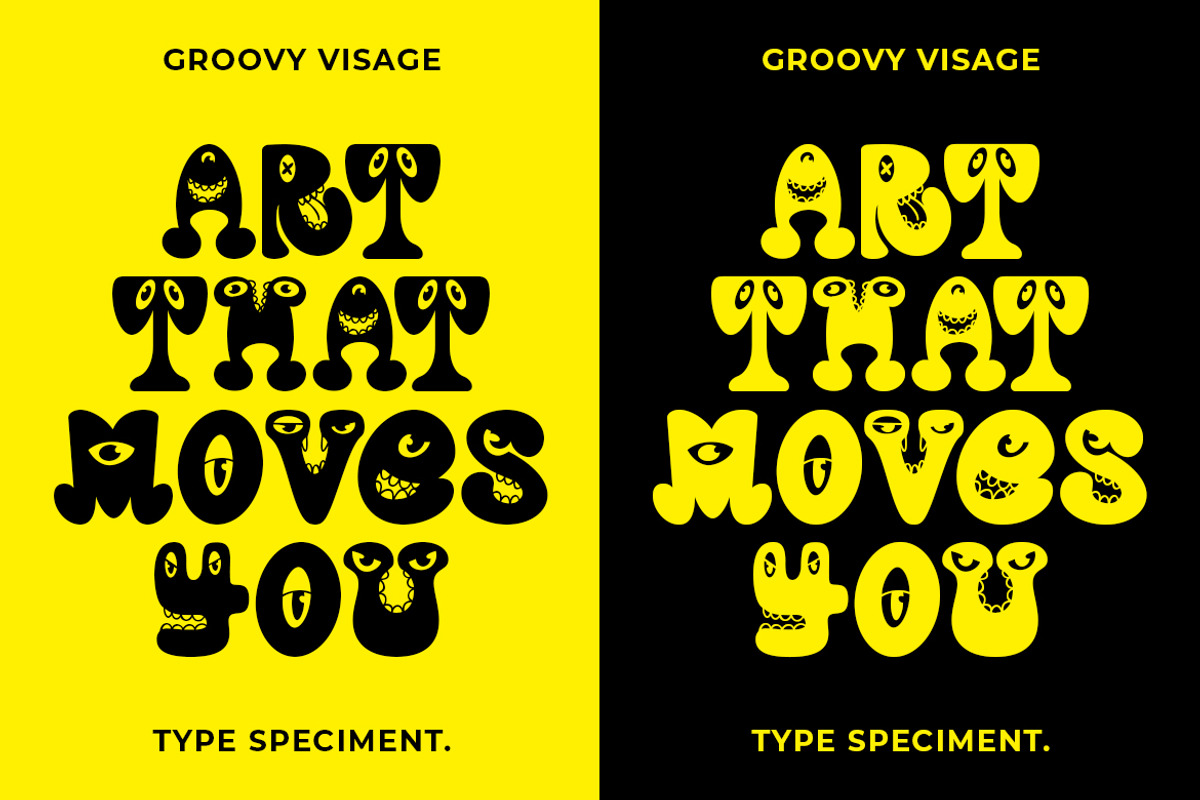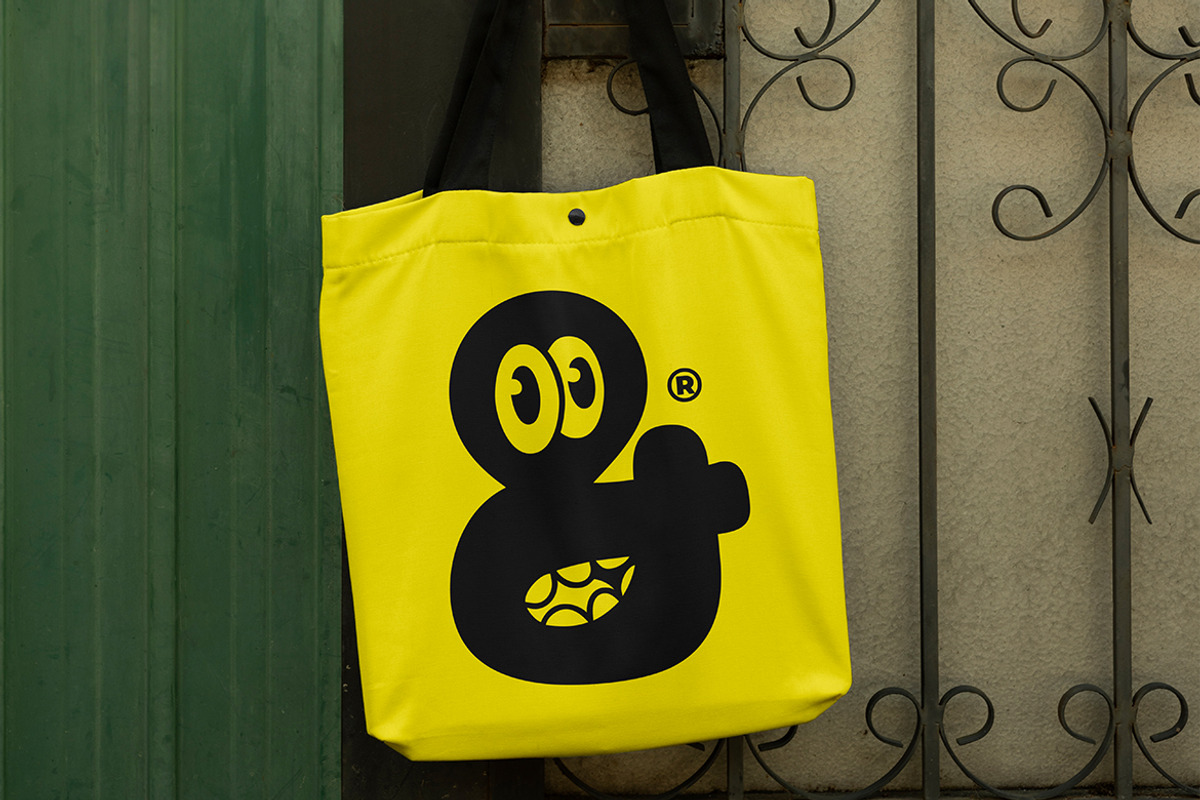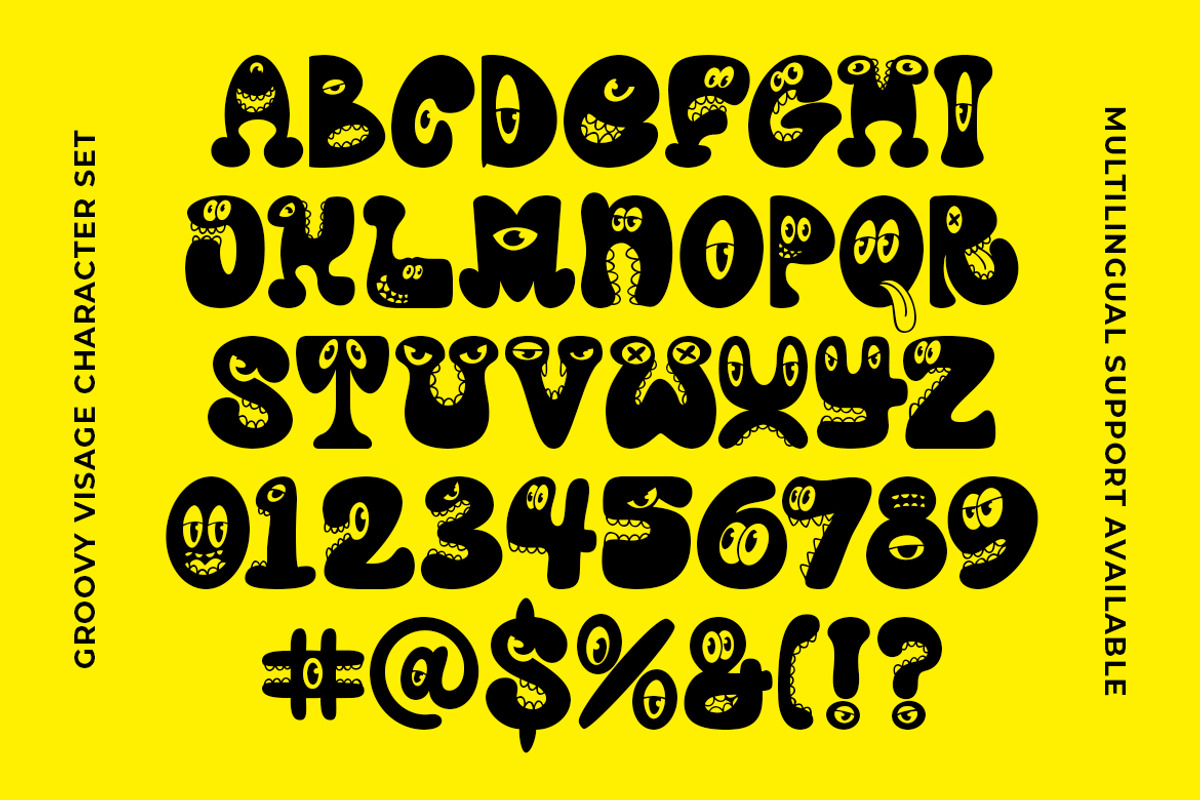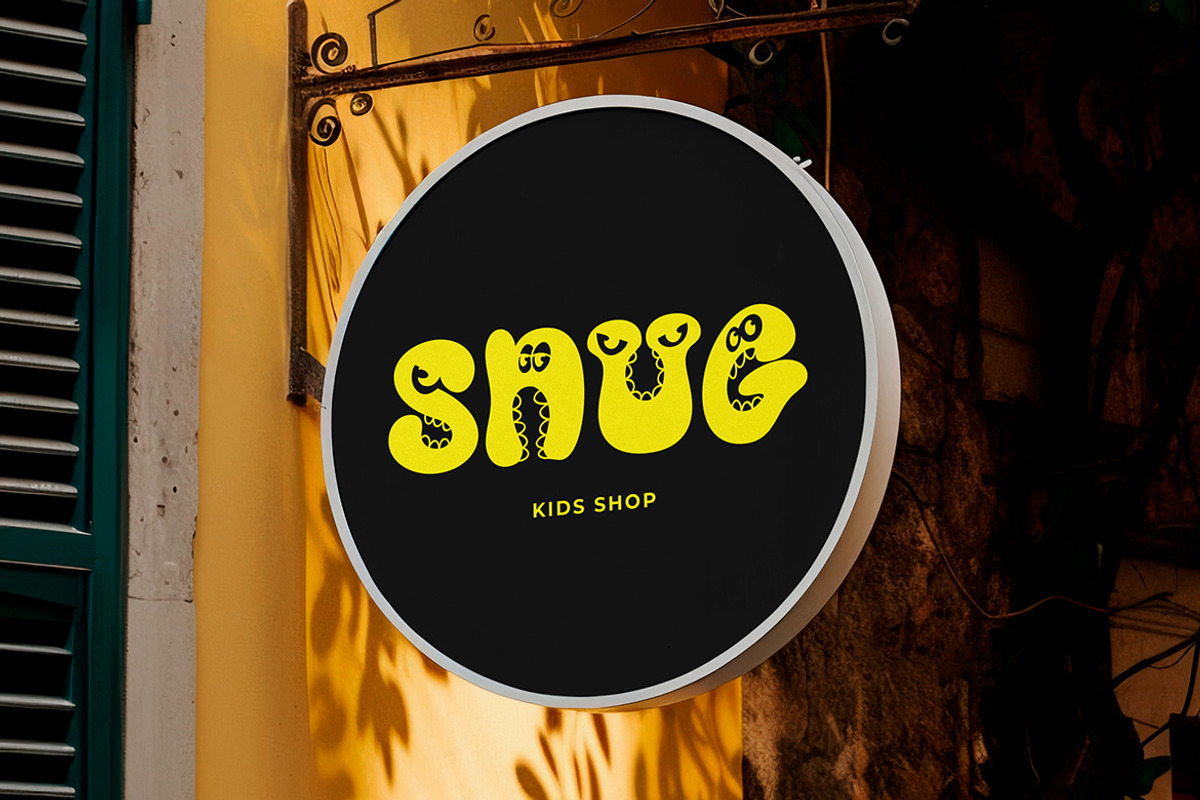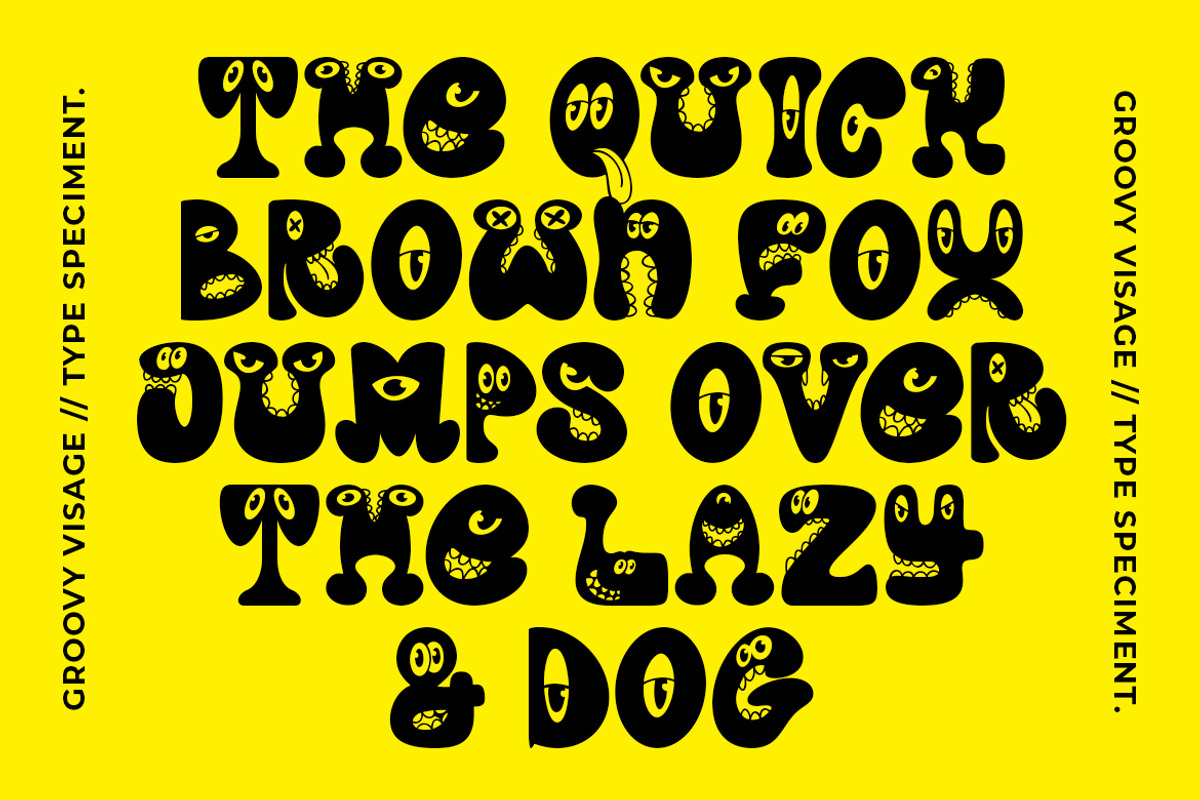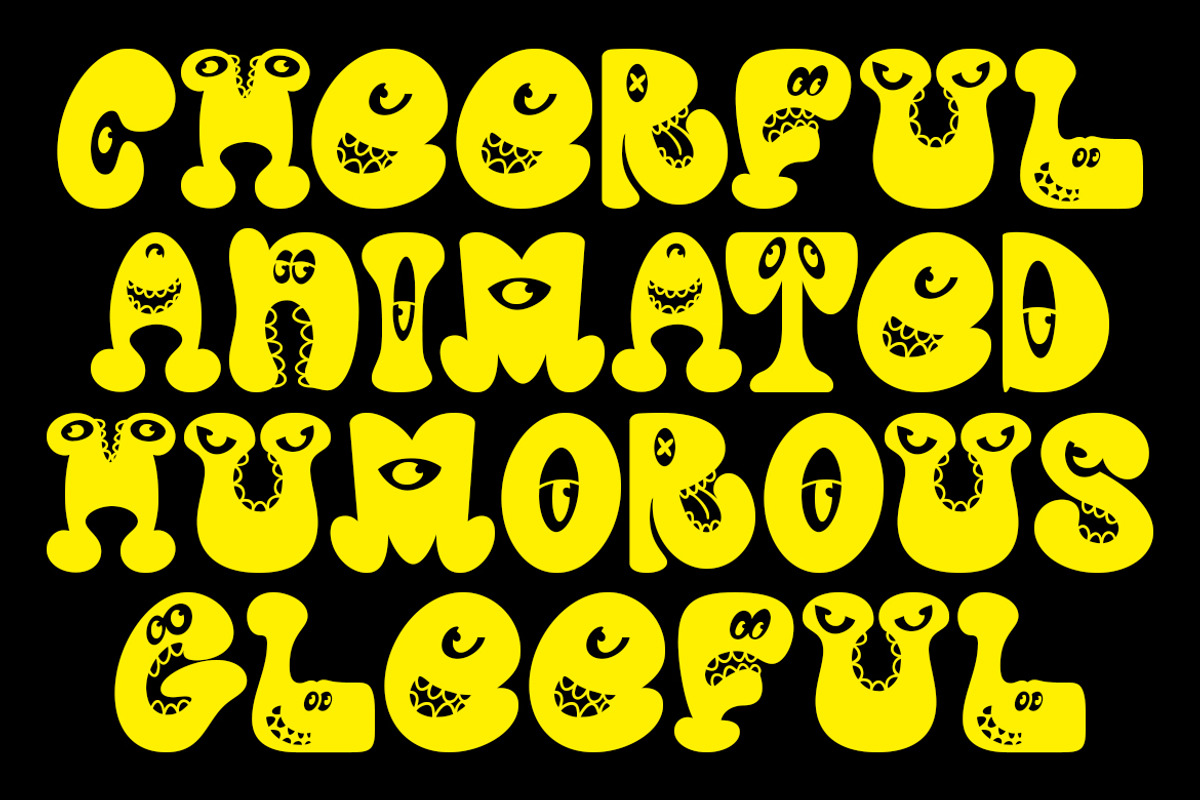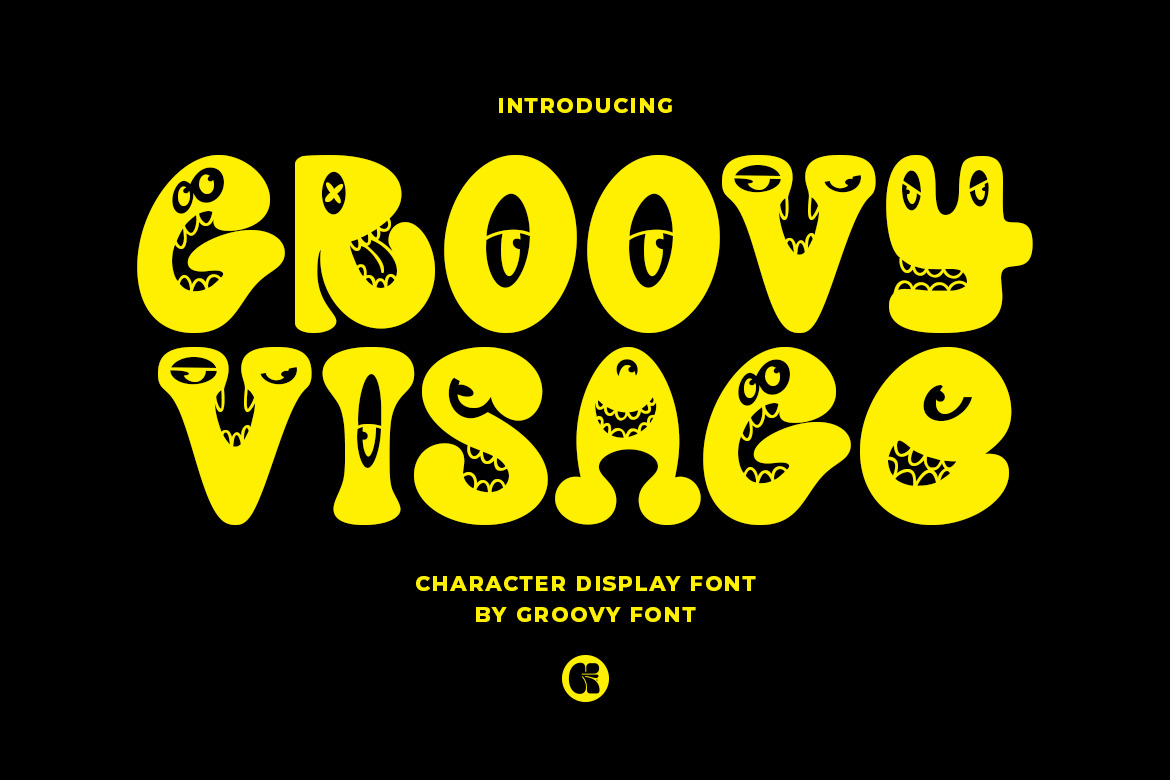
Groovy Visage Character Display Font
Groovy Visage is a Character Display Font
This font is a playful and cheerful font designed with various monster character expressions. Despite its monster-themed design, this font is not scary.
Instead, it brings joy and happiness. It is suitable for all designs related to children and is perfect for creating a fun and whimsical atmosphere.